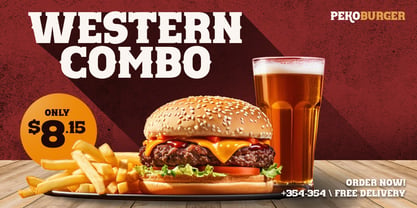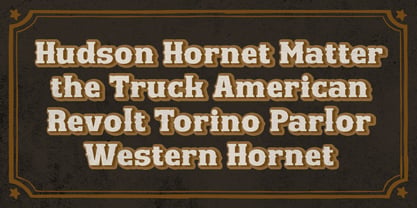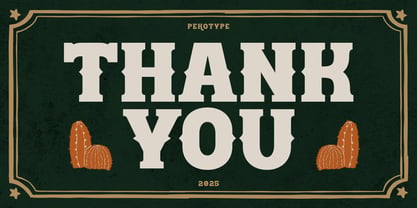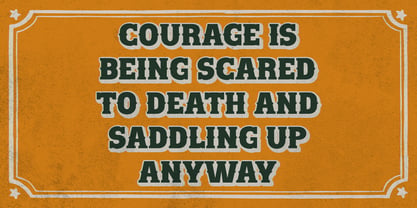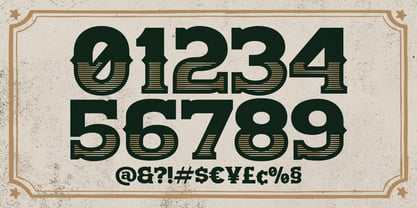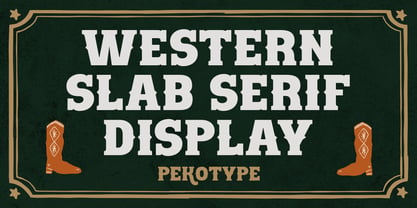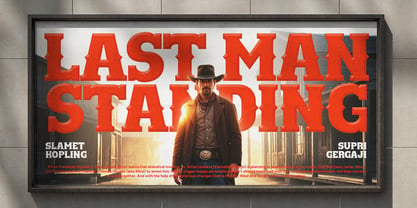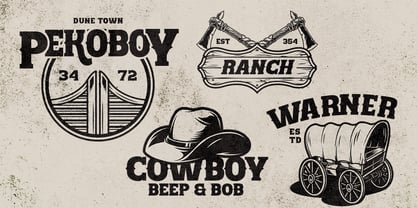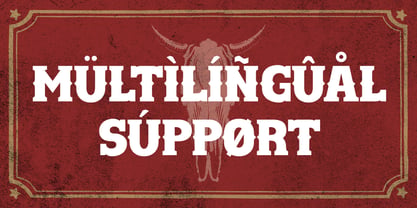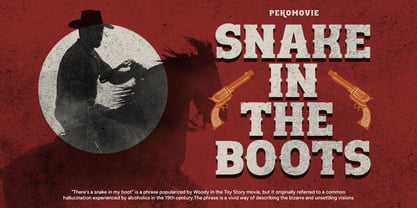
Western Hornet
by Pekotype
The Western Hornet Font Family was designed by Galang Bryan and published by Pekotype. Western Hornet contains 1 styles. More about this family
WESTERN HORNET – Bold Western Vintage Slab Serif Font
Saddle up with WESTERN HORNET, a bold western display font with a modern vintage twist. Inspired by classic Americana and cowboy-era posters, this typeface combines rugged slab serif details with a fresh, contemporary edge. Whether you're designing for branding, logo projects, movie posters, or promotional media, WESTERN HORNET brings a strong, standout presence to every design.
Designers: Galang Bryan
Foundry: Pekotype